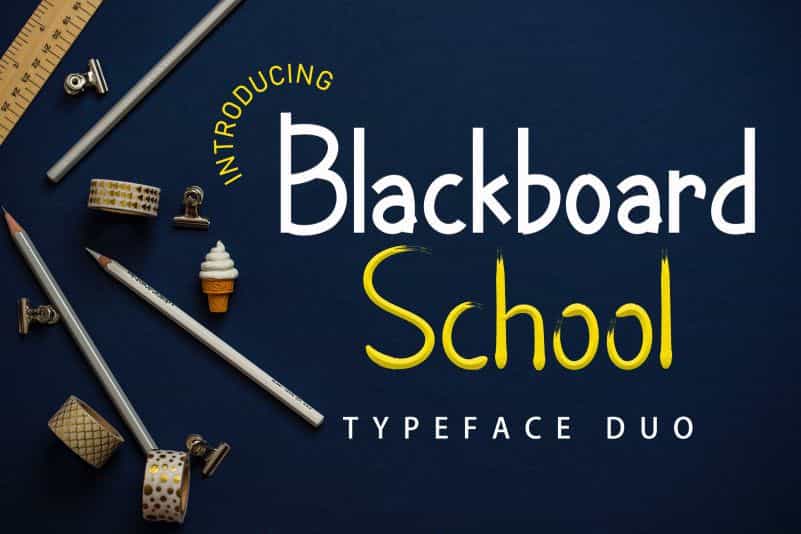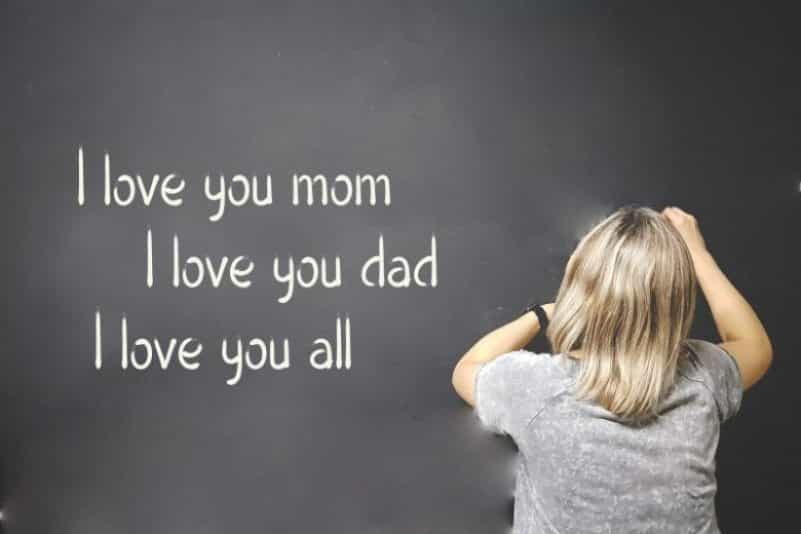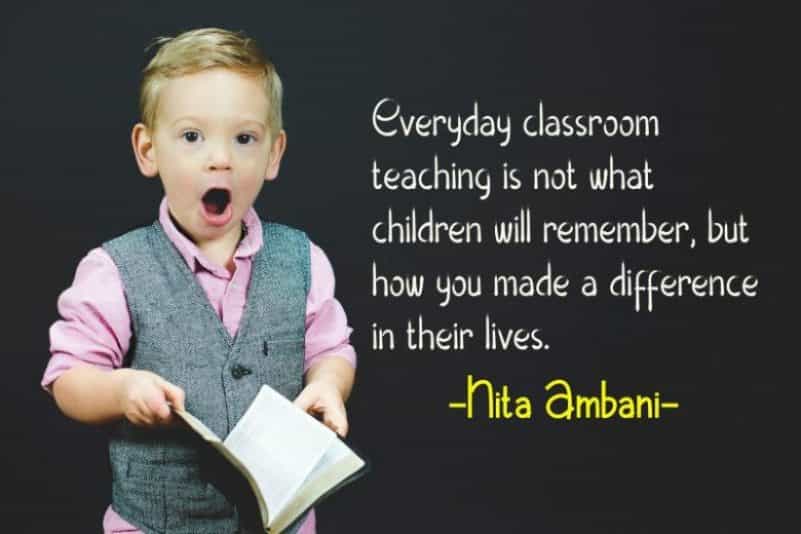
Discover Blackboard School Font, part of the Brush Display collection—a versatile and unique font perfect for adding a personal touch to your projects. Download it for free and enjoy crafting designs with style, from invitations to social media posts. This font is available exclusively for personal use, giving you the freedom to create without limits. Unlock your creativity with Blackboard School Font today!
Blackboard School Font is a new brush font which is funny and playful. It has 2 family fonts, namely the regular font and the awesome font. Blackboard School can be used for any kind of your project: advertisements, branding, graphic design, quotes, wedding design, logo for online or offline business, photography, and others.